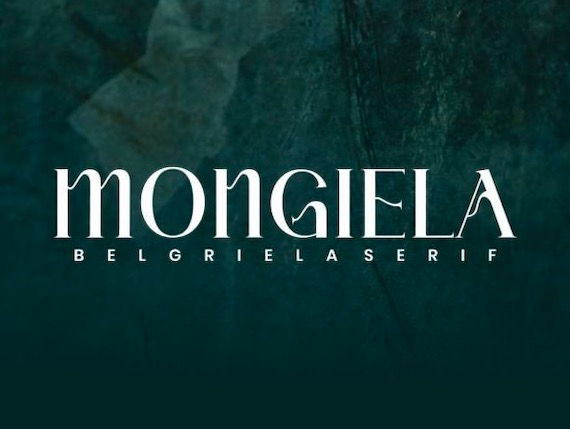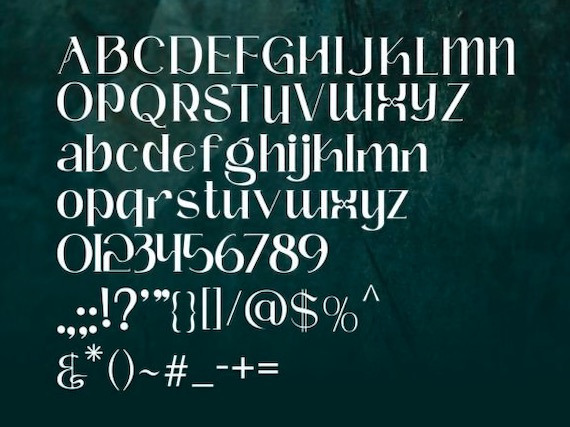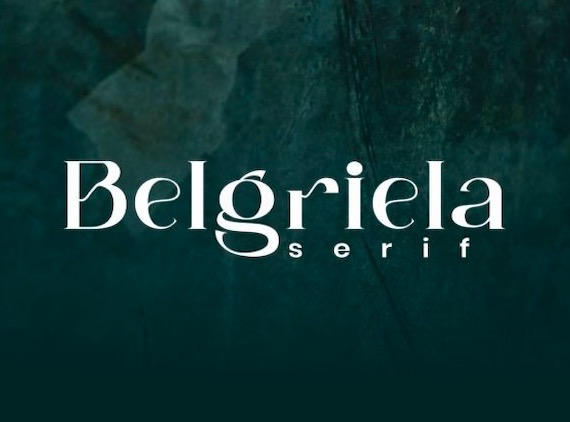
Belgriela is a modern and stylish serif font that was created and shared by Artnivora Std along with an elegant lool. Dainty and classy, this font will be ideal for writing wedding invitations, cards, or any other design that may need a sophisticated touch!
Belgriela Serif Font